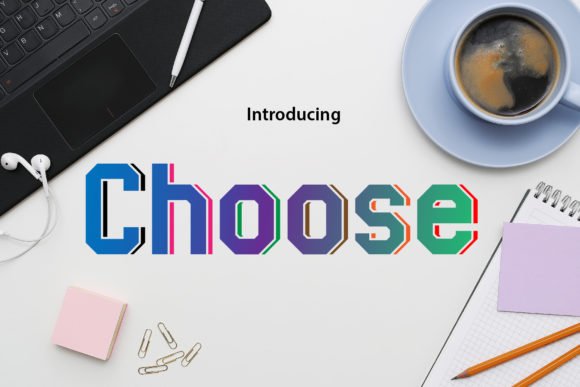
Introduction to Choose Font
Choose is an incredibly futuristic and unique display font.
It celebrates abstract shapes in all their eclectic beauty Add it to your favorite ideas and make them stand out.